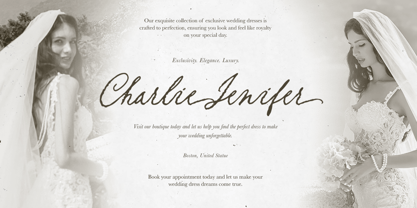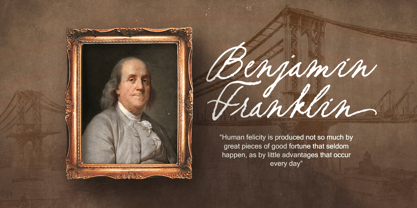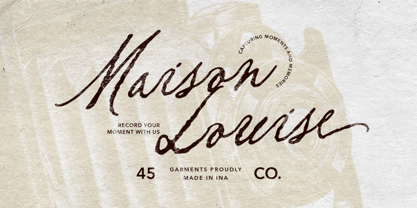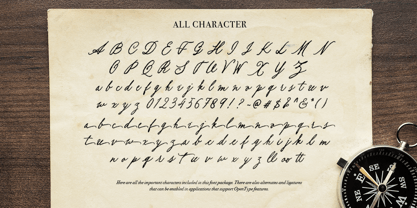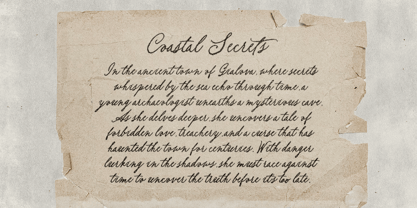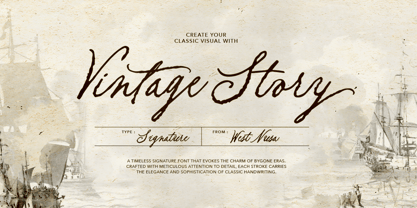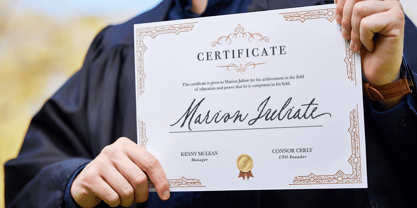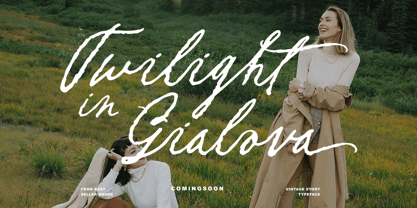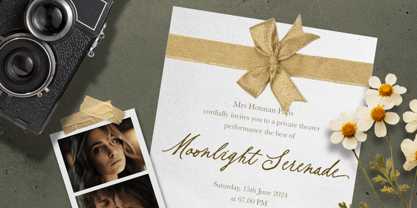
Vintage Story
by Bale Type
The Vintage Story Font Family was designed by Sarid Ezra, Dzikrul Aulia and published by Bale Type. Vintage Story contains 1 styles. More about this family
Vintage Story is a handwritten script with old and rough looks. You can use this font for wedding invitations, love letter, logotype, quotes, and signature. Comes with ligatures and alternates, this font will make your designs more authentic and beautiful. Vintage Story also support multi language.
Designers: Sarid Ezra, Dzikrul Aulia
Foundry: Bale Type